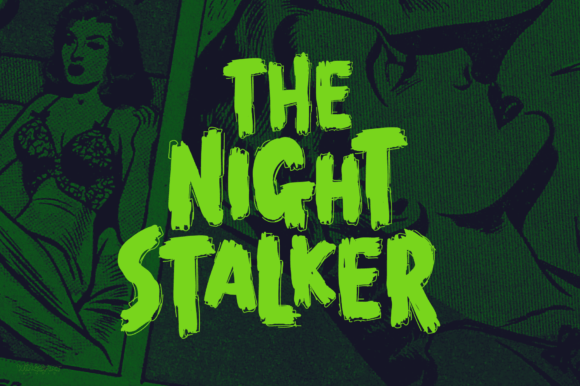
End Crawl Font
Introducing a new creeping terror this Halloween, End Crawl is a hand-drawn brush font inspired by the gore-soaked horror movies and comic books of the 1970s and 80s. This textured all-caps design evokes a nervous energy that will leave your readers frozen in suspense! With a bold painted look surrounded by an anxious outline, it offers the tools to leave your readers stomach in knots!